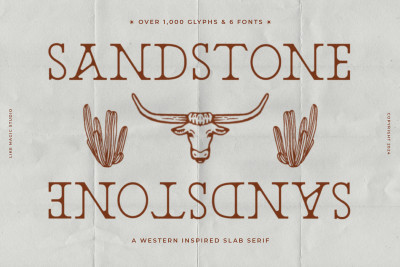
Sandstone - A Western Slab Serif Font
Sandstone - A Western Slab Serif stands out as a reliable typeface choice for designers seeking clarity without sacrificing character.